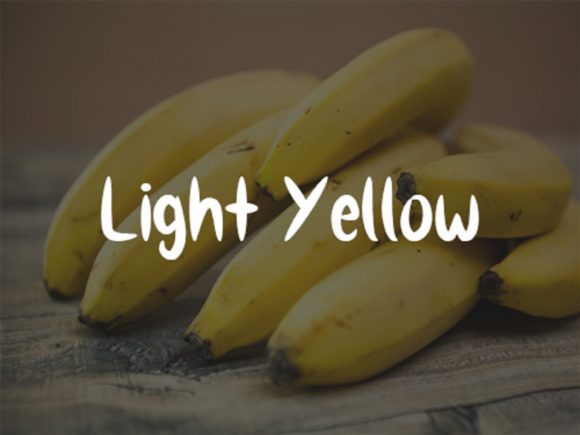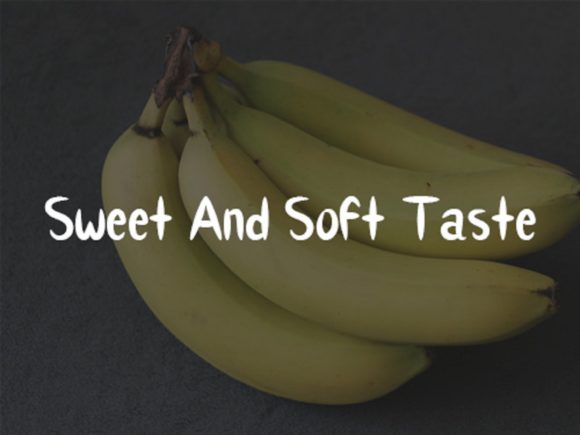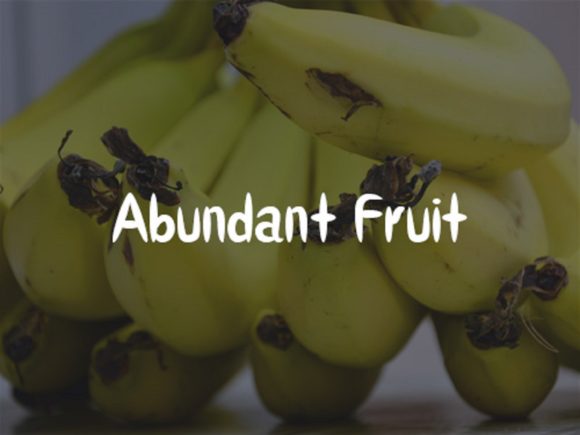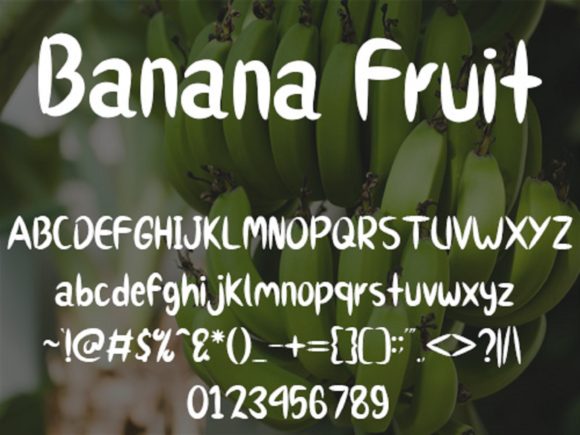
The Perfect Match for Your Next Design Project
Have you ever been in a rush to create something new, only to find yourself stuck on the perfect font? You’ve got a vision, but the words just won’t seem to come together. That’s where Banana Fruit Font comes in – a sweet and friendly handwritten font that’s sure to bring a smile to your face.
This charming font is more than just a pretty face; it’s a versatile tool designed to help you bring your creative ideas to life. With its natural and unique style, Banana Fruit Font is the perfect fit for a wide range of designs, from wedding invitations to social media graphics. Whether you’re a seasoned designer or just starting out, this font is sure to be a valuable addition to your toolkit.
Banana Fruit Font Key Features
- Unique Characteristics: Banana Fruit Font features a distinctive, hand-drawn style with a playful and whimsical feel, making it perfect for designs that require a touch of fun and personality.
Designer Review: Banana Fruit Font
Overall, I’m impressed with the creative direction of Banana Fruit Font. It’s a bold and playful font that’s sure to grab attention. Here are some of the things that work well:
- ✨ Unique character set: The font features a wide range of characters, including accents and punctuation marks, that are designed to match the playful vibe of the font.
- ✨ High-quality rendering: The font renders beautifully at various sizes and resolutions, making it suitable for a wide range of applications.
- ✨ Customizable: The font includes OpenType features that allow for advanced typographic control, making it easy to customize the font to suit different design needs.
- ⚠️ Limited language support: The font only includes characters for the Latin alphabet and a few other languages, which may limit its use in multilingual designs.
- ⚠️ Limited font weight options: The font only includes a few font weights, which may not be suitable for designs that require a wide range of weights.
- ⚠️ Some glyphs may not render correctly: I noticed that some of the glyphs, such as the ampersand and the copyright symbol, may not render correctly in certain situations.
Overall, I think Banana Fruit Font is a great choice for designs that need a playful and attention-grabbing font. However, it may not be the best choice for designs that require a wide range of language support or font weight options.
For optimal results, use the Banana Fruit Font in conjunction with bright, playful colors and bold graphics.
Experiment with different font sizes and styles to create visual interest and emphasis.
The Banana Fruit Font is perfect for:
Children’s book covers and illustrations
Food and beverage branding
Playful marketing campaigns
Summer-themed events and parties